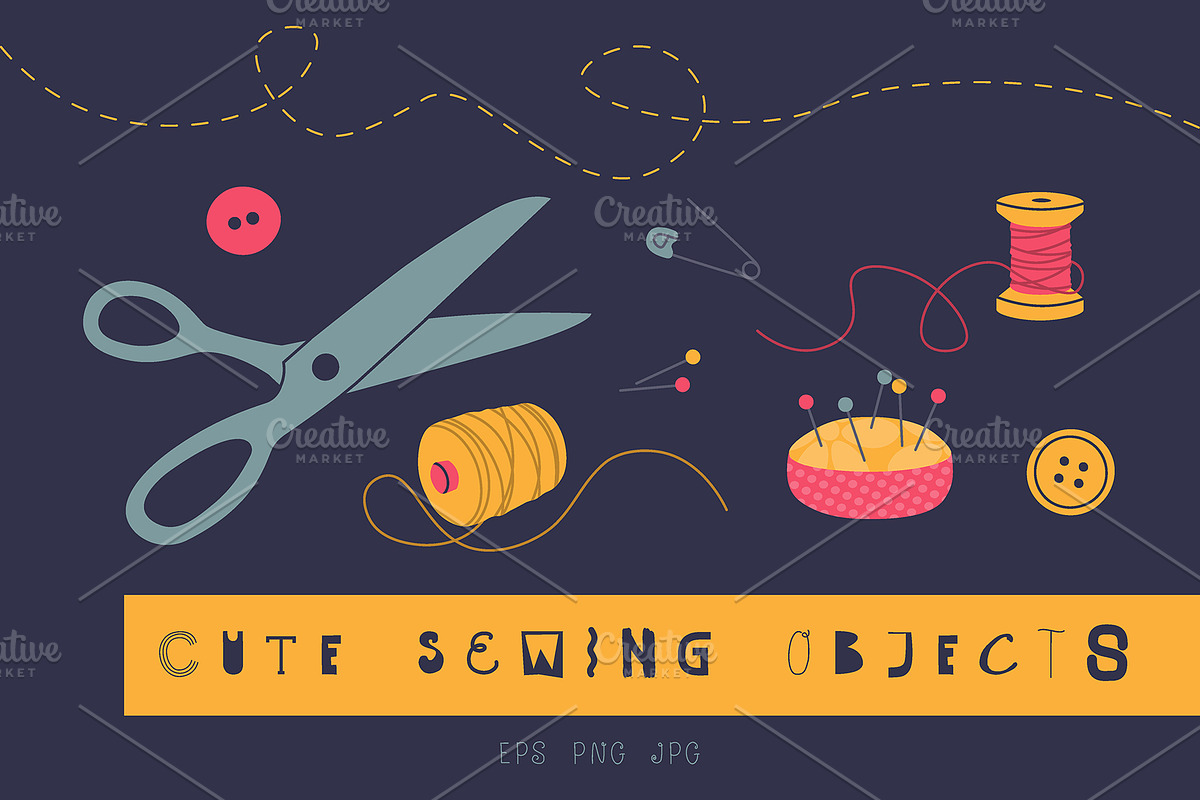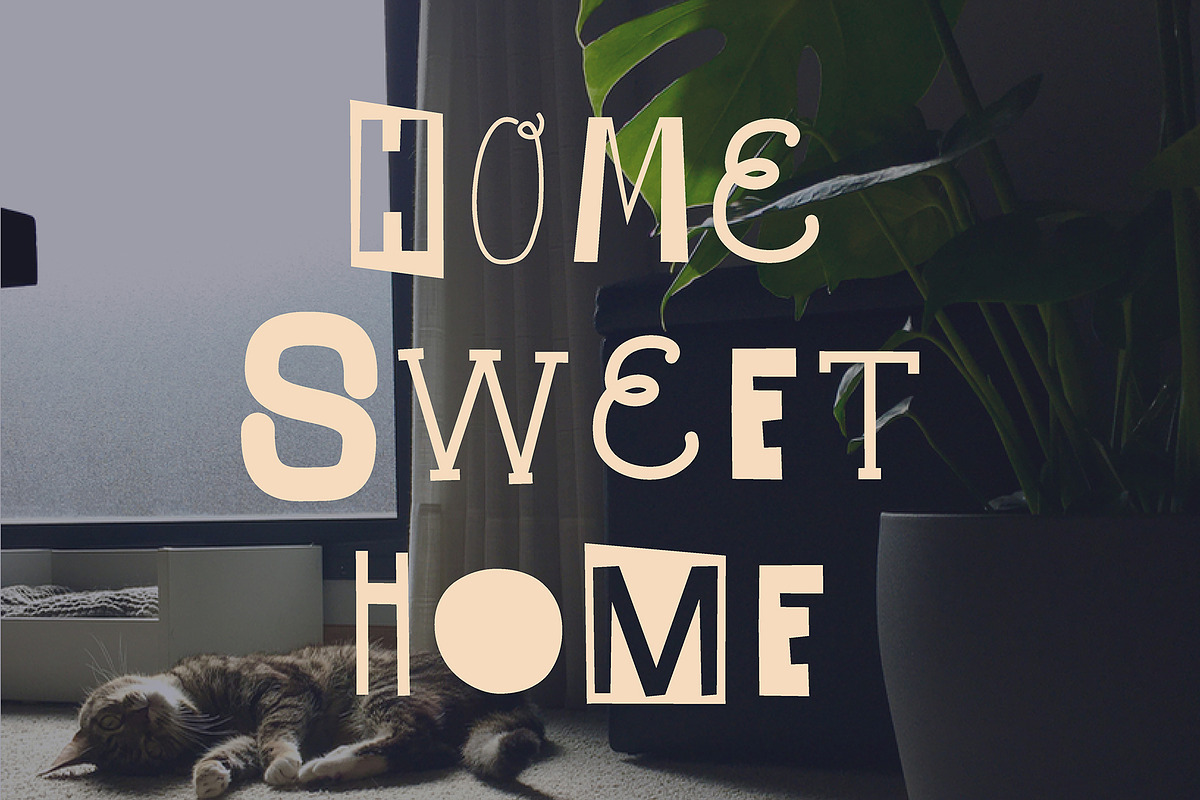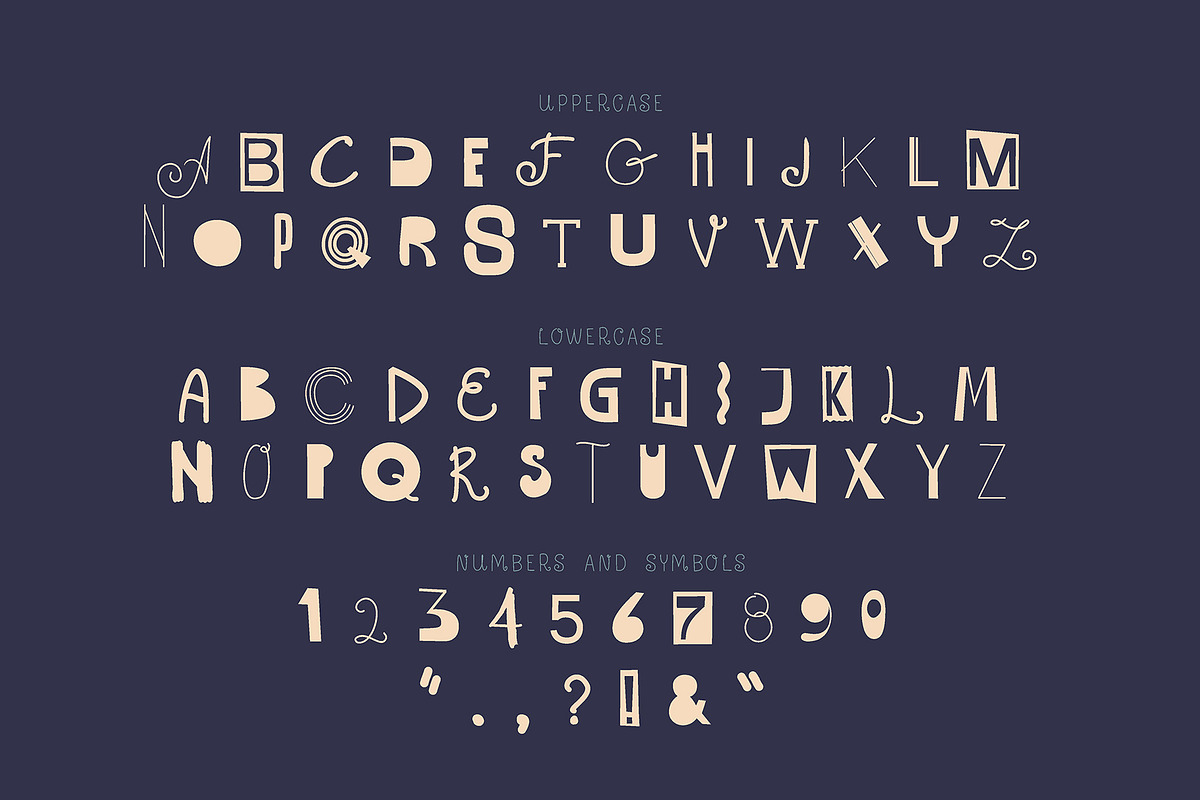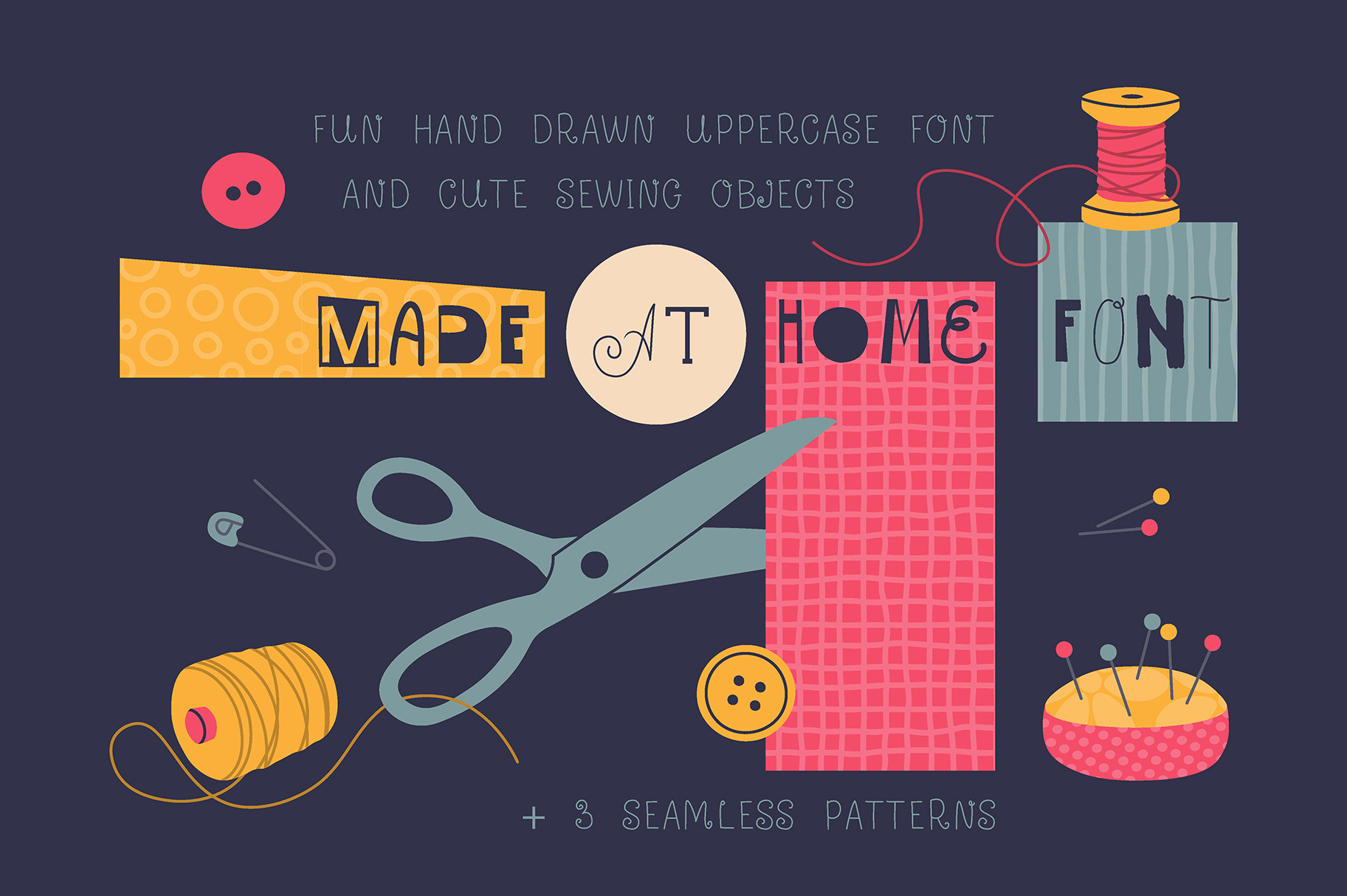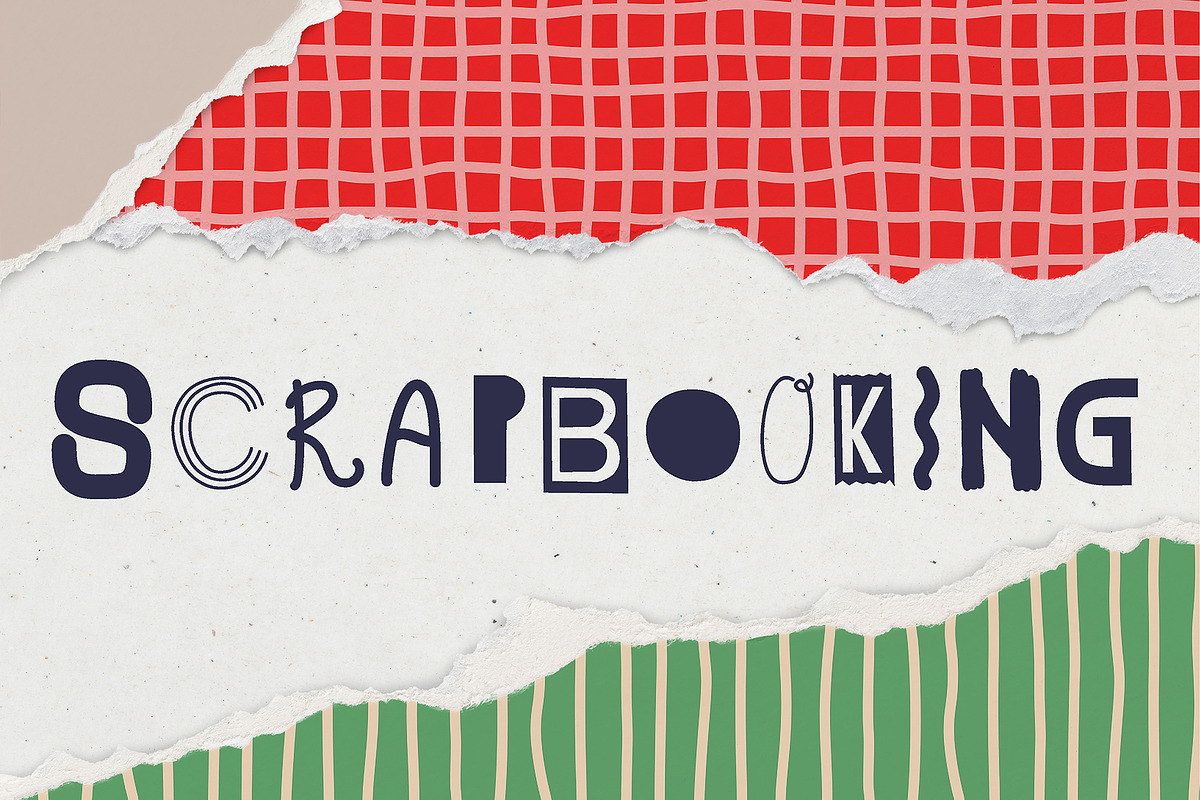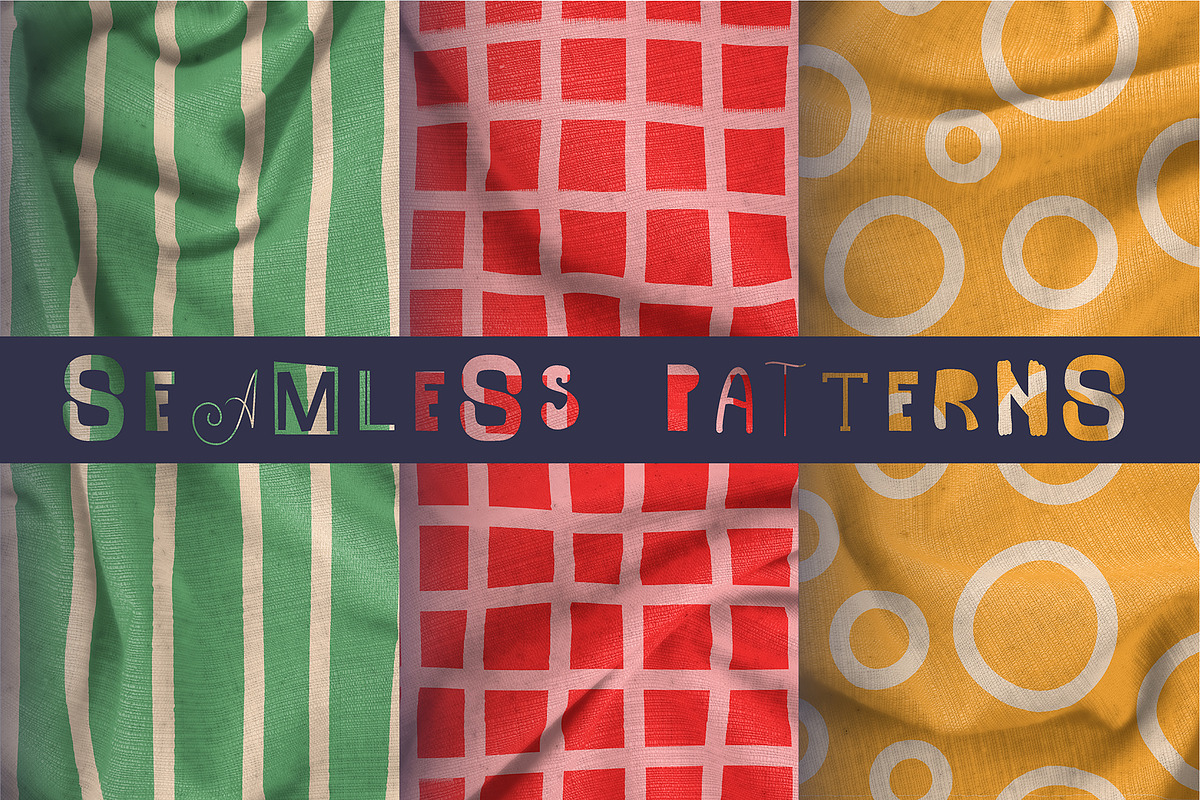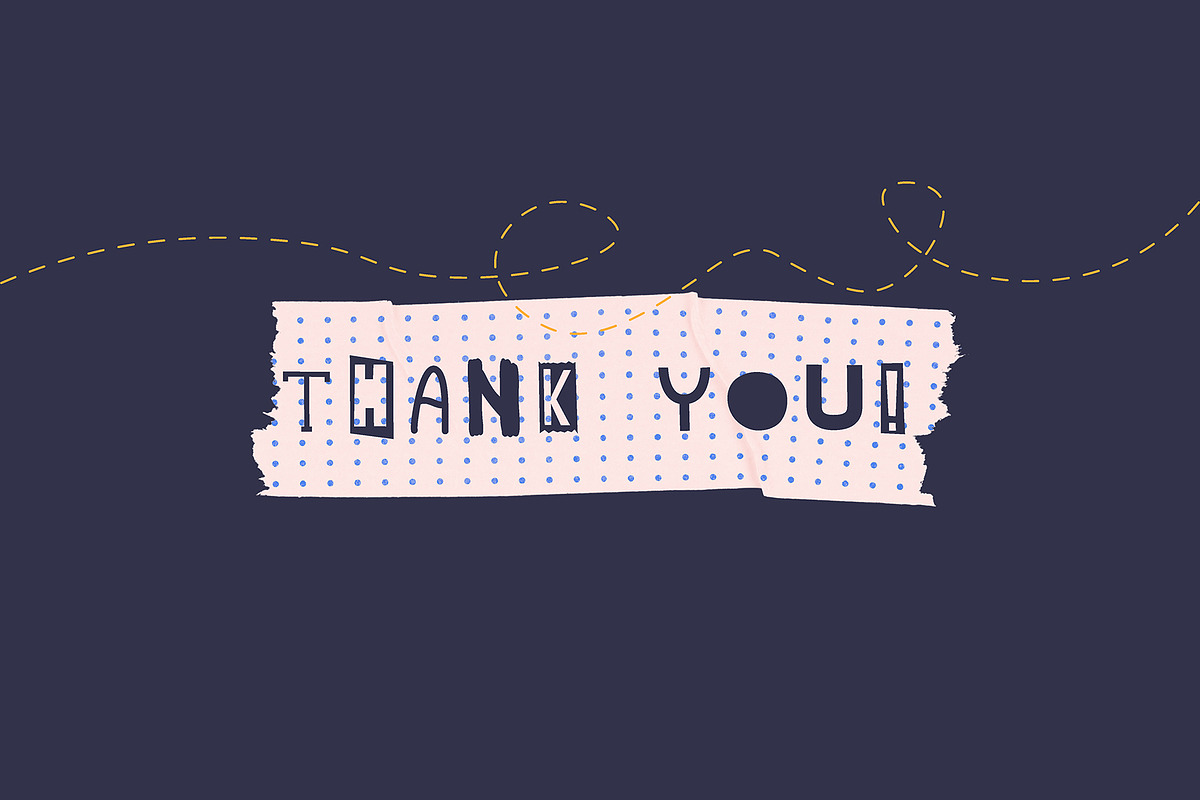
Fun hand drawn uppercase font
Made at Home Font
Say hello to Made at Home, a fun hand-drawn uppercase font with a playful, handmade feel.
The font includes two different sets of letters, numbers, and punctuation. Each set features completely different letter designs, creating a fun mix of quirky, hand-drawn characters. Simply switch between uppercase and lowercase while typing to get an alternative set of letters and create a more varied, playful look.
The font also comes with cute vector illustrations inspired by sewing and handmade crafts — including scissors, spools of thread, buttons, and more. The illustrations can be easily recolored in Adobe Illustrator.
Use the font and illustrations together or separately to create your own unique designs. Perfect for branding, packaging, posters, social media graphics, podcast covers, and other creative projects.